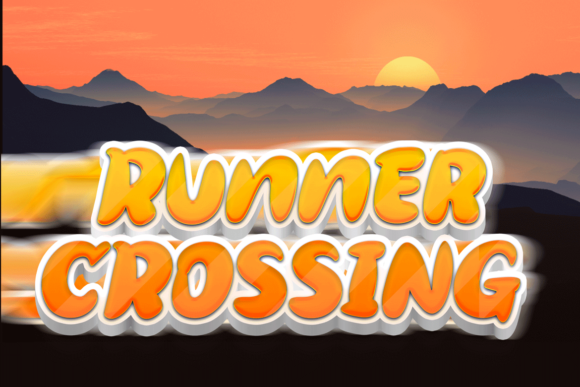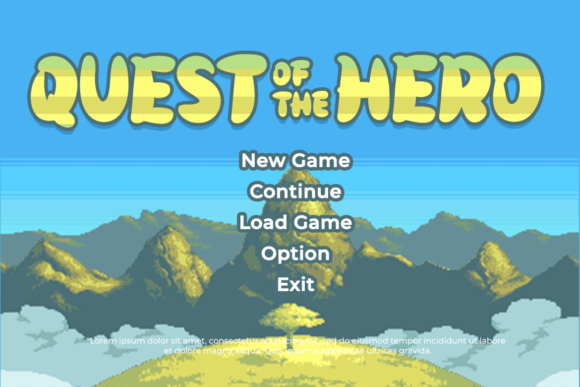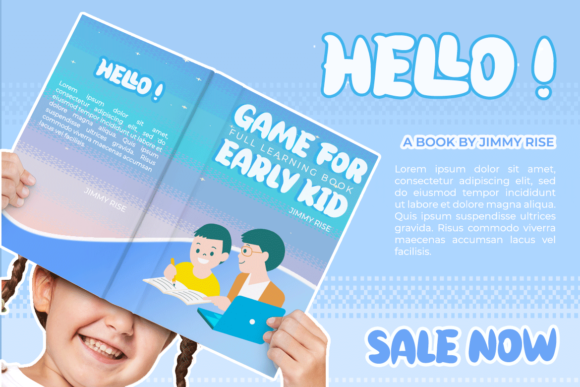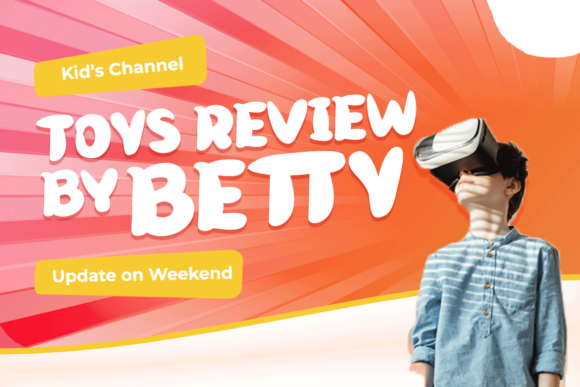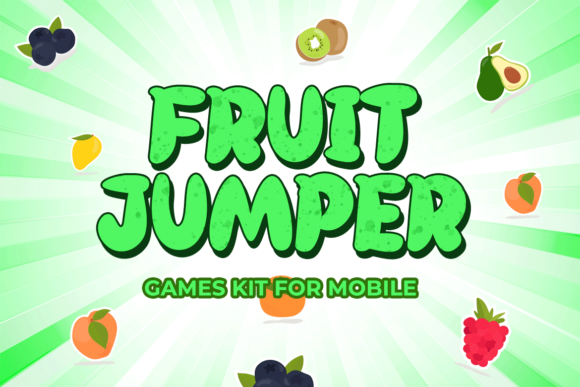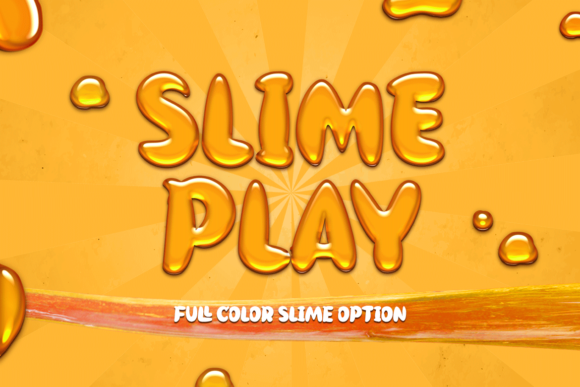
Gone Hills Font: The Perfect Choice for Fun and Playful Designs
Are you looking for a font that can add a touch of playfulness and authenticity to your designs? Look no further than Gone Hills Font! This cool, thick lettered, and cartoon-like display font is perfect for any children activity or school project. In this article, we’ll take a closer look at Gone Hills Font and explore its features, benefits, and uses.
What is Gone Hills Font?
Gone Hills Font is a unique and eye-catching display font that is designed to bring a sense of fun and playfulness to your designs. Its thick letters and cartoon-like appearance make it perfect for designs that require a youthful and energetic feel. Whether you’re working on a children’s activity book, a school project, or a fun DIY craft, Gone Hills Font is the perfect choice.
Features of Gone Hills Font
Gone Hills Font has several features that make it stand out from other fonts. Some of its key features include:
- Thick letters: The font features thick, bold letters that are easy to read and perfect for display purposes.
- Cartoon-like appearance: The font has a playful, cartoon-like appearance that is sure to bring a smile to anyone’s face.
- Playful feel: The font embodies a sense of playfulness and authenticity that is perfect for designs that require a fun and youthful feel.
Benefits of Using Gone Hills Font
There are several benefits to using Gone Hills Font in your designs. Some of the benefits include:
- Easy to read: The font is easy to read, even for children, making it perfect for children’s activity books and school projects.
- Adds a touch of playfulness: The font adds a touch of playfulness and authenticity to your designs, making them more engaging and fun.
- Versatile: The font is versatile and can be used for a variety of designs, from children’s activity books to DIY crafts.
Uses of Gone Hills Font
Gone Hills Font can be used for a variety of designs, including:
- Children’s activity books: The font is perfect for children’s activity books, such as coloring books, puzzles, and games.
- School projects: The font is great for school projects, such as posters, presentations, and reports.
- DIY crafts: The font can be used for DIY crafts, such as making cards, gift tags, and other paper crafts.
- Signs and banners: The font can be used for signs and banners, such as welcome signs, directional signs, and event banners.
Tips for Using Gone Hills Font
Here are some tips for using Gone Hills Font:
- Use it for display purposes: The font is perfect for display purposes, such as headings, titles, and captions.
- Pair it with other fonts: The font can be paired with other fonts to create a unique and interesting look.
- Experiment with colors: The font can be used with a variety of colors to create a fun and playful look.
Gone Hills Font is a fun and playful display font that is perfect for any children activity or school project. Its thick letters and cartoon-like appearance make it easy to read and add a touch of playfulness to your designs. With its versatility and ease of use, Gone Hills Font is a great choice for designers and crafters looking to add a little fun and authenticity to their designs.